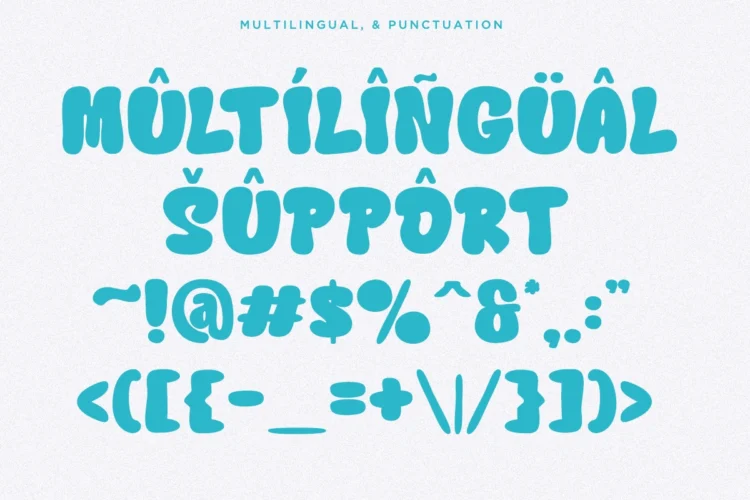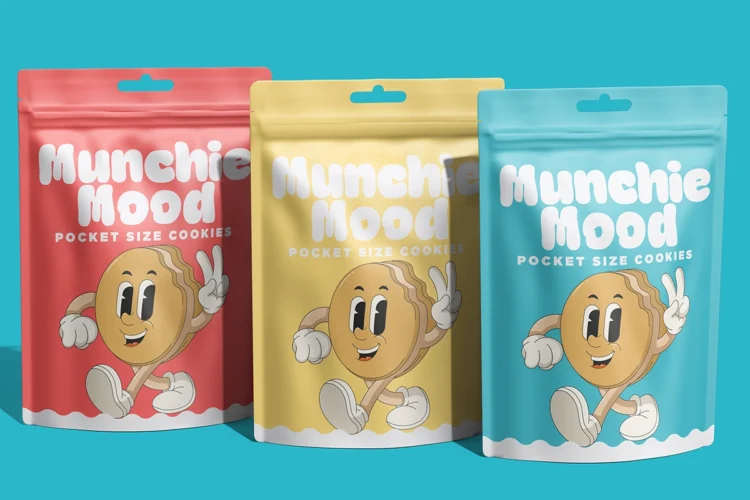
Jacklin
Jacklin is a groovy on the classic bubble style.
Jacklin features rounded edges and soft curves that bring a playful and sophisticated touch to any design.
Perfect for posters, branding, packaging, and headlines, this font stands out effortlessly.
Jacklin – Groovy Bubble Font